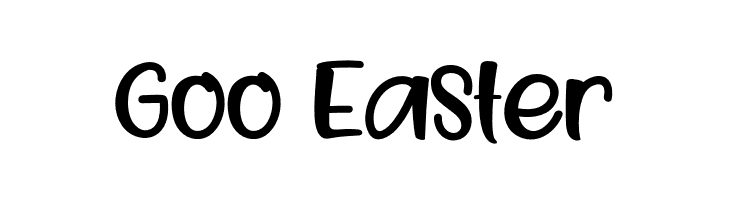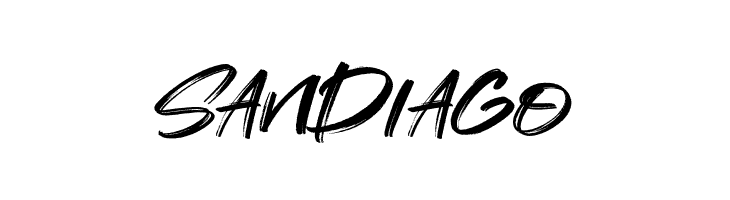
A playful, handwritten-style font with rounded edges and consistent stroke width.
A playful, rounded sans-serif font with bold, smooth curves.
A bold, geometric sans-serif font with a modern and clean aesthetic.
A bold, playful handwritten font with thick strokes and a casual style.
A bold, three-dimensional font with a strong, impactful presence and geometric shapes.
A modern, dot-based font with a digital aesthetic.
A dot matrix style font with a modern, digital aesthetic.
A bold, rounded font with a halftone texture, offering a retro and playful appearance.
A bold, decorative font with concentric outlines and a playful, geometric style.
A bold, decorative font with hollow, layered outlines and a whimsical style.
A bold, decorative font with concentric circles and a playful, extravagant style.
A playful, geometric font with hollow, circular elements.
A playful, hand-drawn font with bold, outlined characters.
A bold, playful font with geometric and intricate patterns.
A playful, bold font with rounded edges and a hand-drawn feel.
A flowing, cursive font with elegant loops and swashes, perfect for artistic projects.
A bold, geometric font with sharp angles and a modern aesthetic.
A modern, clean sans-serif font with uniform stroke width and versatile character set.
A playful and elegant handwritten script font with flowing curves.
An elegant and flowing script font with interconnected letterforms.
A dynamic and flowing script font with elegant, cursive strokes.
A fluid and elegant script font with dynamic letterforms and graceful curves.
A bold, modern font with thick, uniform strokes and a strong visual impact.
A bold, geometric font with a futuristic, industrial design.
A bold, pixelated font with a retro, digital style.
A modern, connected hollow font with geometric shapes and consistent stroke width.
A futuristic, geometric font with bold lines and connected elements.
A pixelated, blocky font with a retro digital aesthetic.
A tall, narrow font with a clean, modern aesthetic.
A dynamic, fluid handwritten script with elegant, flowing strokes.
A distressed serif font with a vintage, rugged appearance.
An ornate and decorative font with intricate embellishments.
A bold, expressive brushstroke font with a dynamic and artistic style.
A bold, brushstroke font with high contrast and dynamic style.
A cursive, handwritten-style font with elegant loops and swashes.